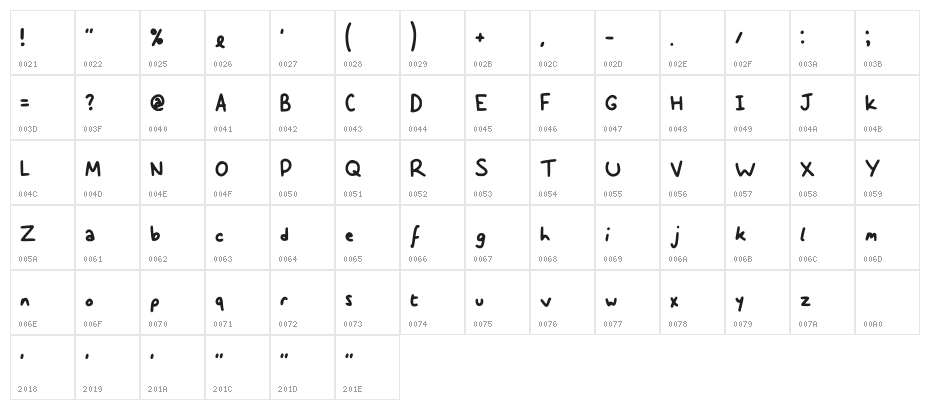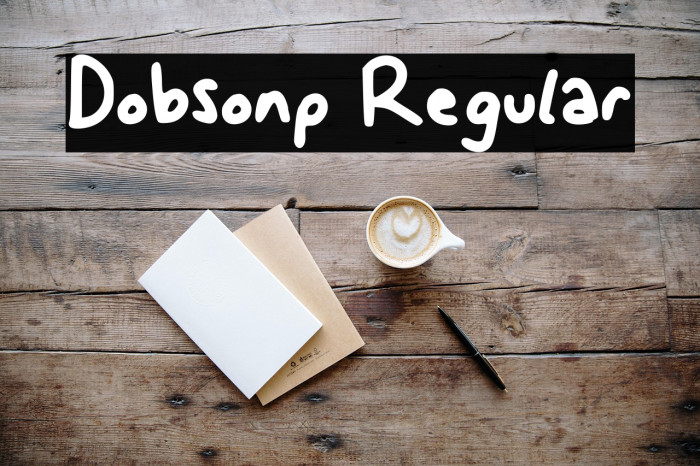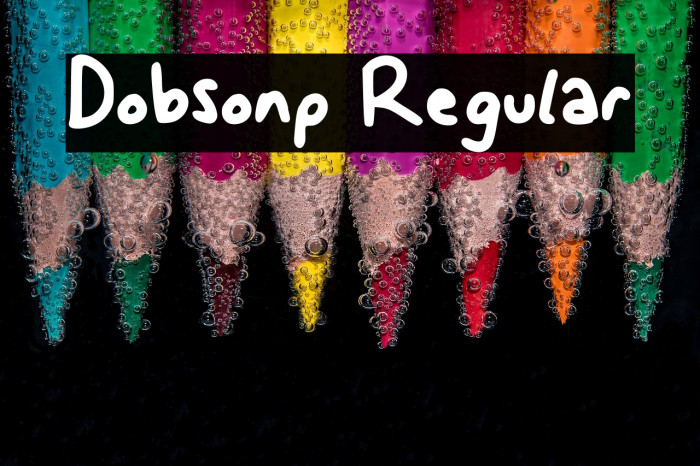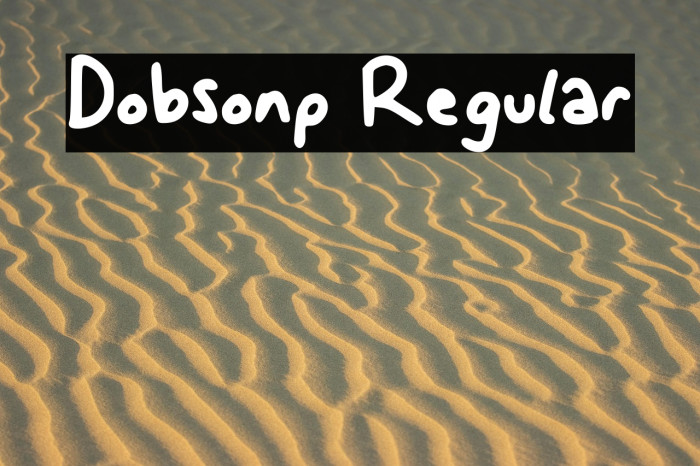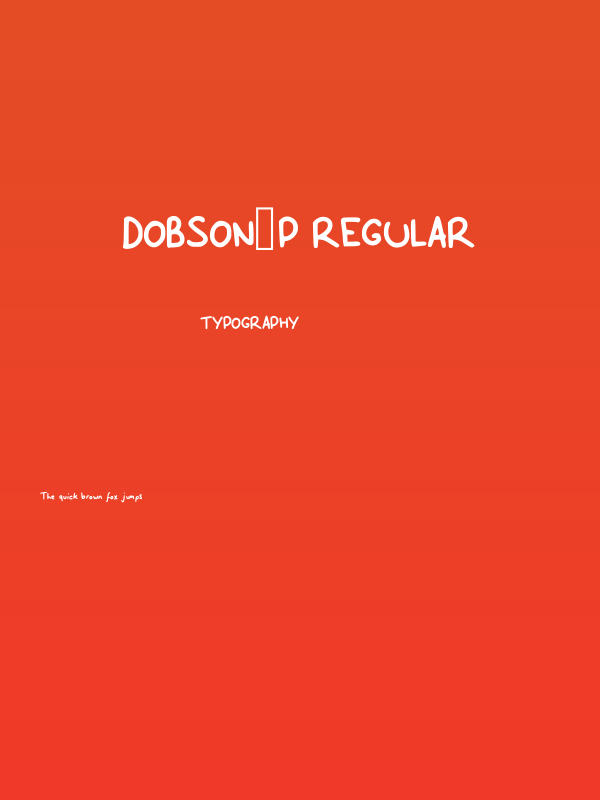
Dobson_p Regular Font
Dobson_p Regular Description
A playful, handwritten font with a casual and friendly appearance. The characters have a slightly uneven baseline, adding to the informal style.
| Overall Style | Casual, Friendly |
| Use Case | Headlines, Informal text, Branding |
| Proposed Projects | Greeting cards, children's books, casual branding. |